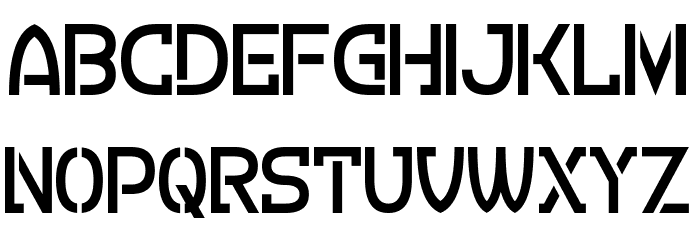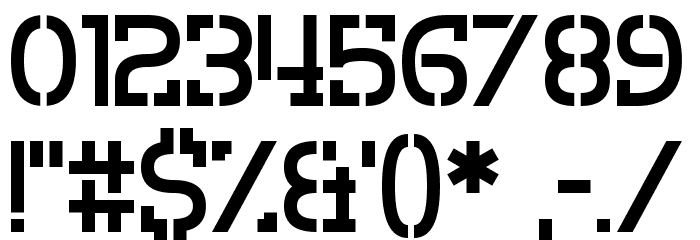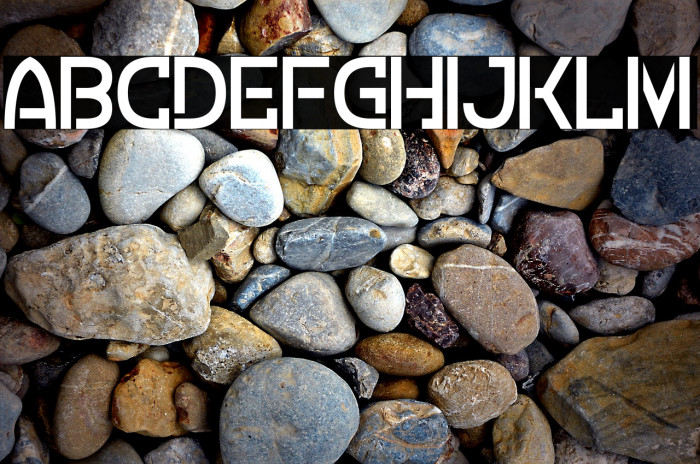
Crevice Stencil Font
This font features a bold, geometric design with a distinct stencil-like appearance. Each character is crafted with sharp, angular edges and consistent line thickness, creating a modern and industrial feel. The letters are uniformly spaced, maintaining a clean and organized look. The uppercase and lowercase letters share a similar structure, enhancing the font's cohesive style. Numbers and special characters are designed to match the boldness and geometric nature of the alphabet, making it versatile for various applications. The font's unique cut-out sections within each character add an intriguing visual element, making it stand out in any design project.
A bold, geometric stencil font with sharp, angular edges and consistent line thickness.
- Proposed Projects: Ideal for branding, signage, posters, and any project requiring a modern, industrial aesthetic.